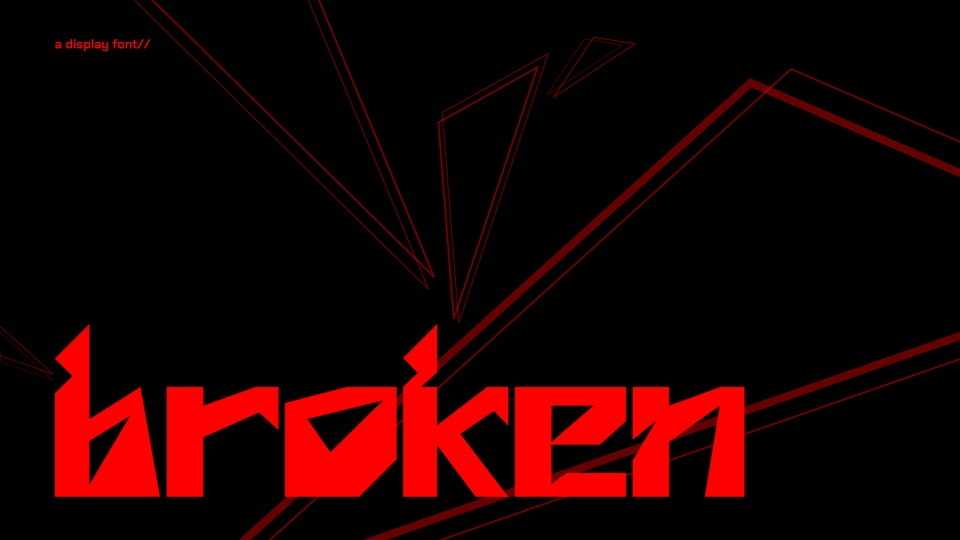
Download Broken font, a conceptual display typeface, inspired from broken glass pieces, especially tailored imperfectly, so as to evoke that feeling of sharpness that tears right through your heart when you break something, or when something valuable to you is broken!